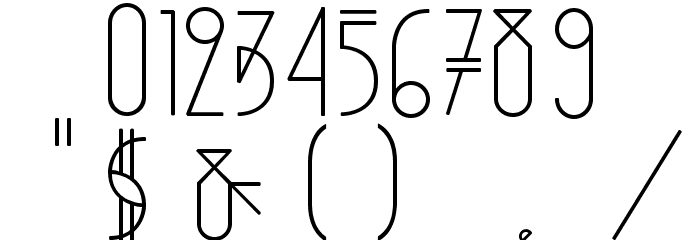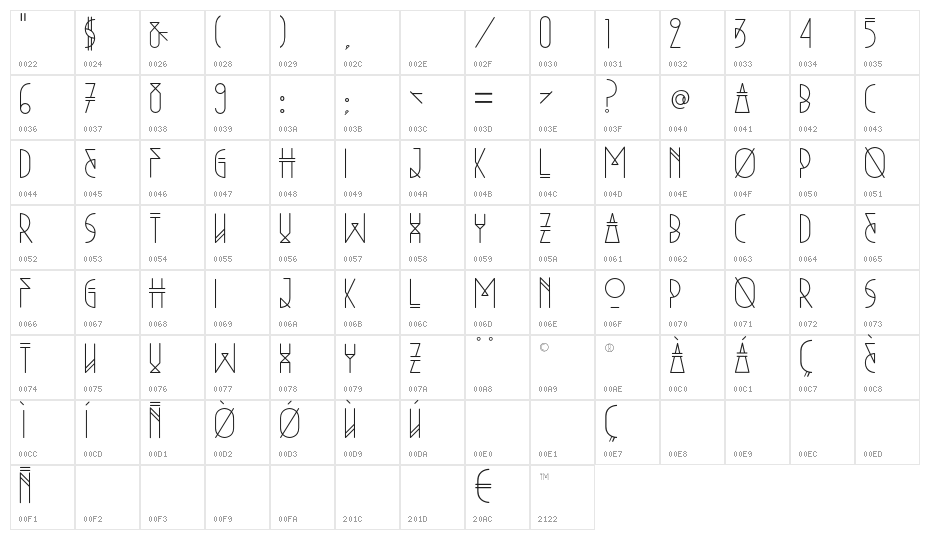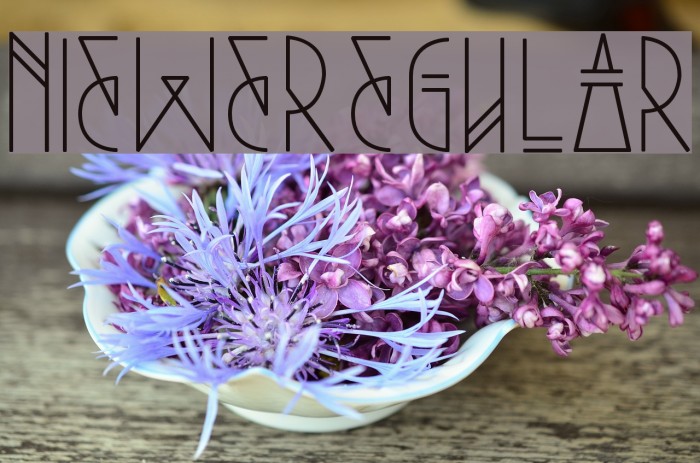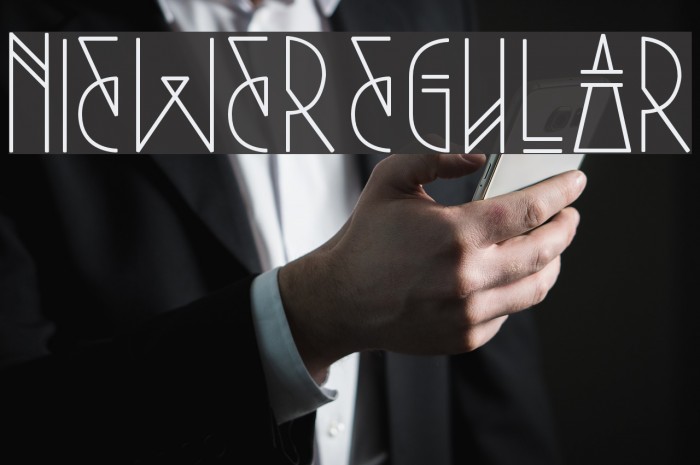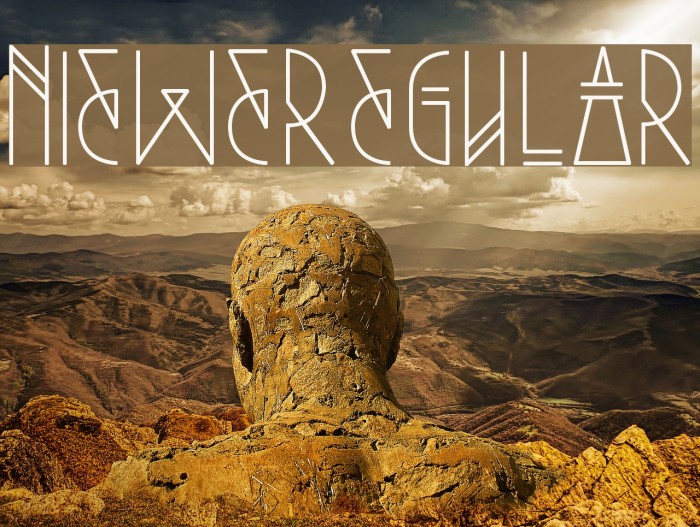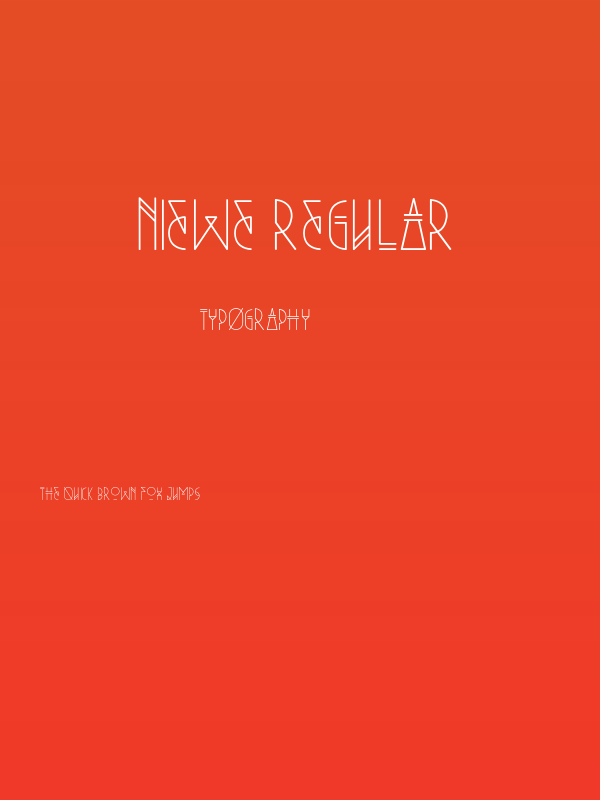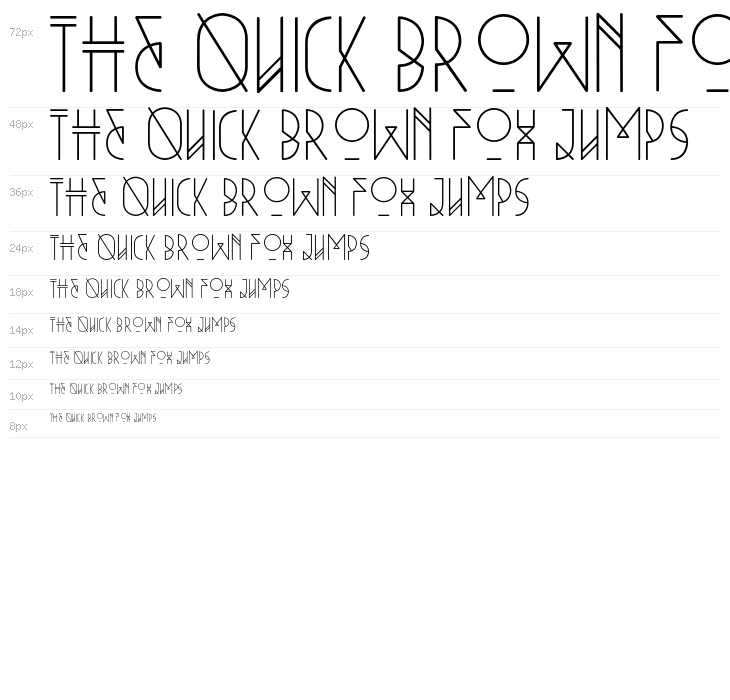
Niewe-Regular Font
Niewe-Regular Description
This font features a geometric and modern design with a unique blend of sharp angles and clean lines. The uppercase letters are characterized by their distinct triangular and diagonal elements, giving them an avant-garde appearance. The lowercase letters maintain a similar style, with a consistent height and width that complements the uppercase set. Numbers are designed with a minimalist approach, ensuring clarity and readability. Special characters are crafted to match the overall aesthetic, making this font suitable for creative and contemporary projects.
| Use Case | Logos, Posters, Headlines |
| Proposed Projects | Ideal for branding, logos, posters, and modern web design projects. |